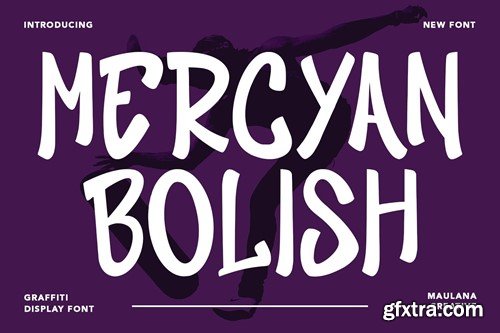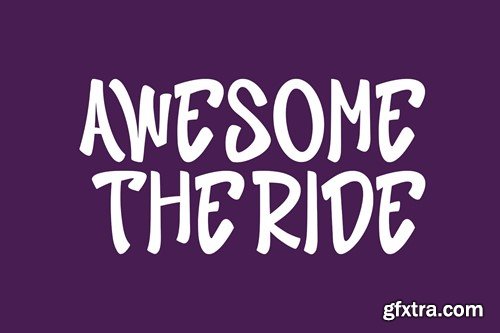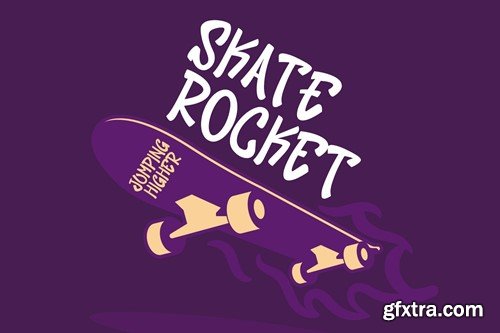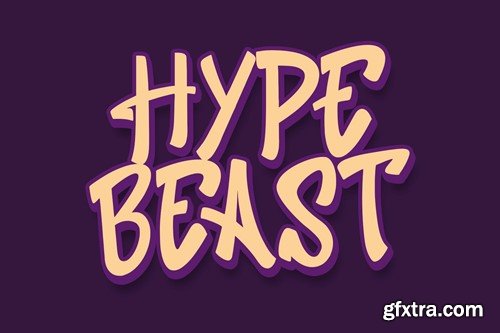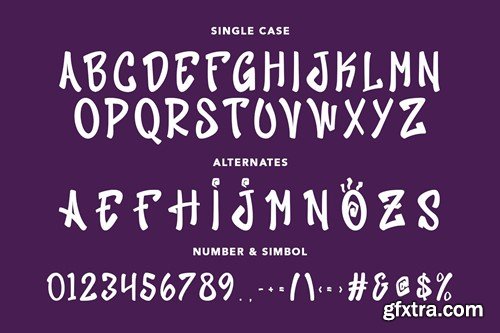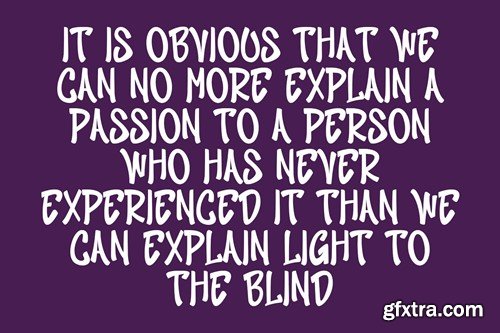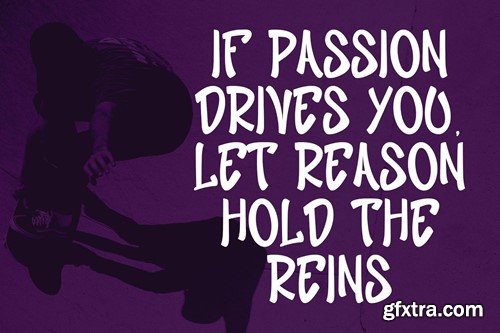
Mercyan Bolish Graffiti Display Font
Mercyan Bolish graffiti display font. With Bold Sharp stroke, Upright and fun character with a bit of ligatures. To give you an extra creative work. Mercyan Bolish graffiti display font support multilingual more than 100+ language. This font is good for logo design, Social media, Movie Titles, Books Titles, a short text even a long text letter and good for your secondary text font with Script. Make a stunning work with Mercyan Bolish graffiti display font. What you get: Cheers, Maulana Creative